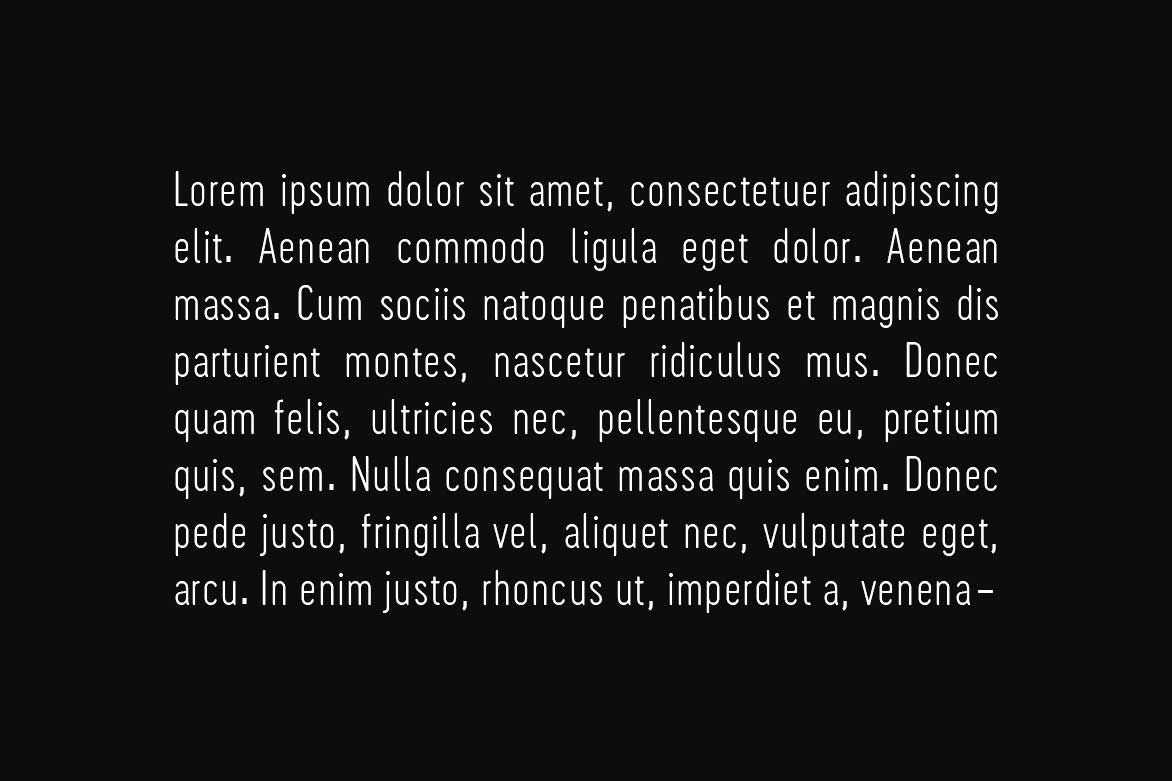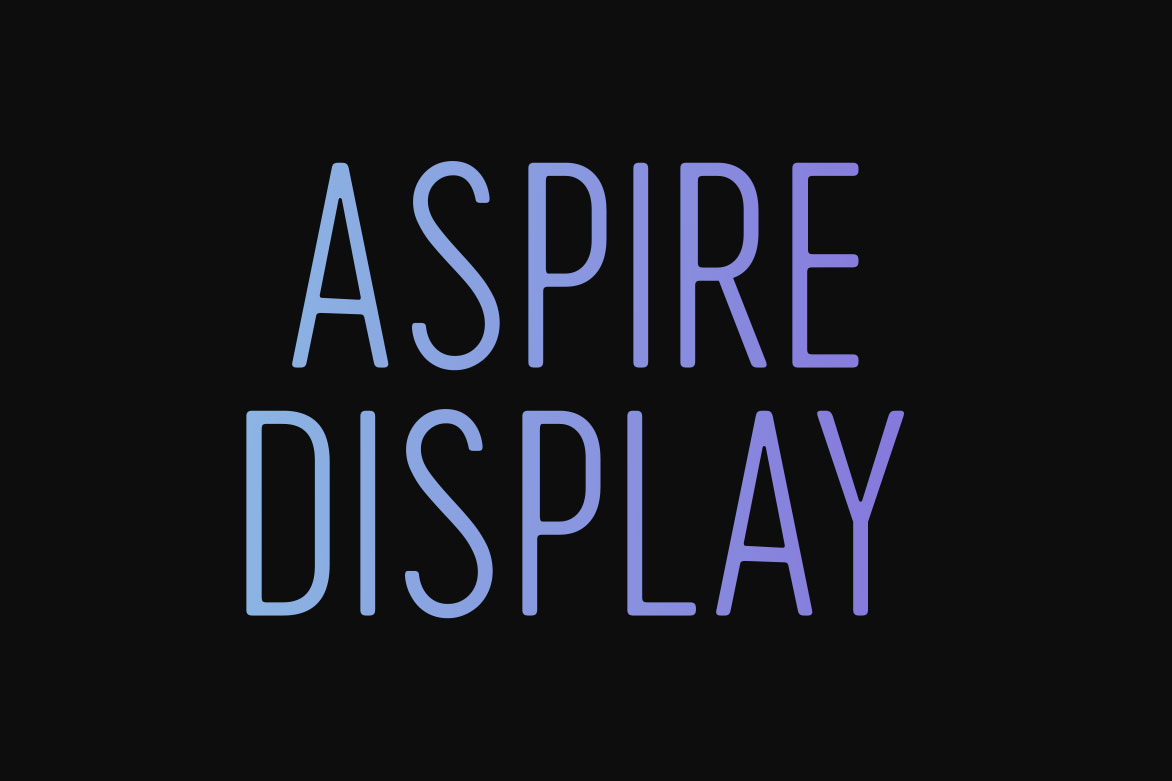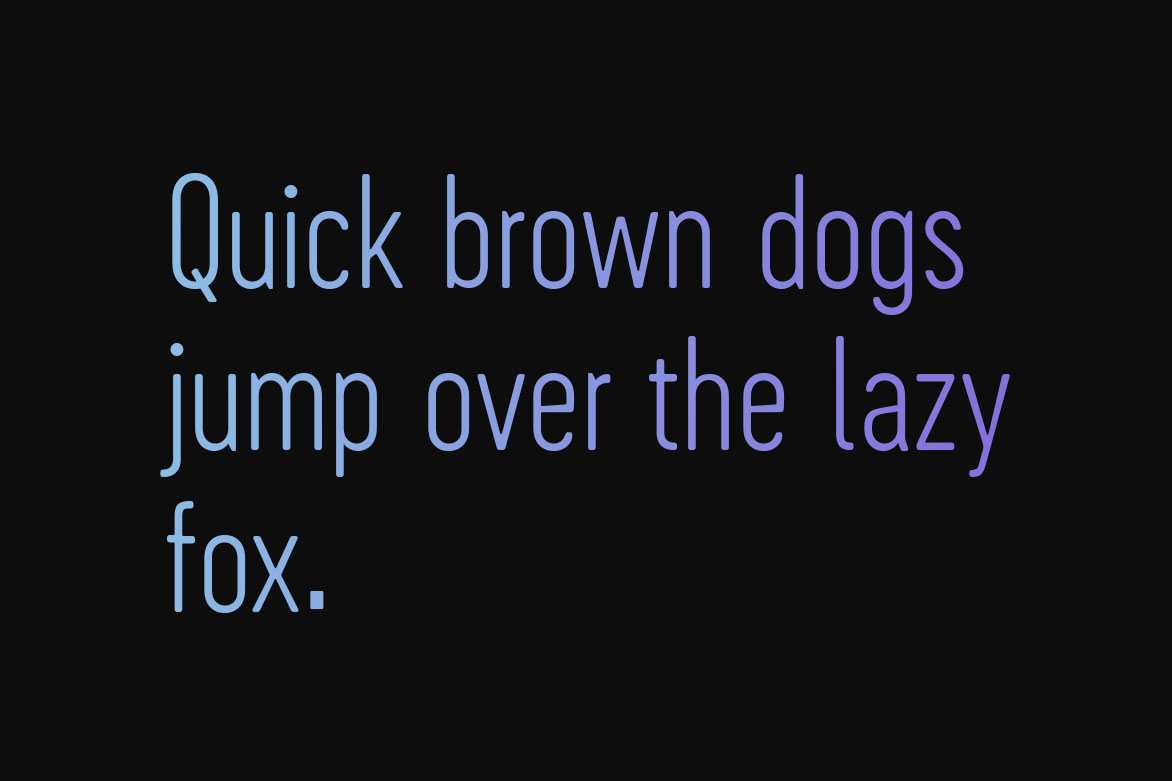
Aspire Sans is a classic and Minimal Sans Serif typeface, Aspire Sans can keep the minimalism at its level best and is a perfect choice for Creative and Classic Typography Designs. The pack includes OTF, TTF and Web Fonts (all EOT, SVG, TTF, WOFF included).